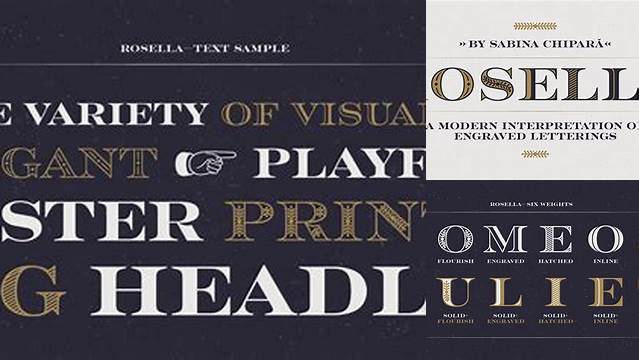
Rosella Pro Inline Font: Free Download & Design Tips
Hey everyone! Today, we're diving headfirst into the fantastic world of the Rosella Pro Inline font. This is a super cool typeface that's perfect for adding a touch of elegance and style to your designs. If you're looking for a free download of Rosella Pro Inline, you've come to the right place. We'll explore where you can grab it, how to use it effectively, and even sprinkle in some design tips to help you create stunning visuals. So, buckle up and get ready to unleash your creativity with this awesome font! Let's get started with everything you need to know about Rosella Pro Inline and its free download options. It's all about making your designs pop and attracting your audience! This will make sure that you can create the best visual experience when people see your work.
Understanding the Rosella Pro Inline Font Family
Let's delve deeper into the Rosella Pro Inline font family. This font is known for its unique inline design, meaning it has a clean line running through the center of each letter. This design adds a touch of modern flair and makes it a standout choice for various design projects. You'll find that the font looks fantastic in headlines, titles, and any situation where you want to make a bold statement. Because of its distinctive style, the Rosella Pro Inline font can be incredibly versatile. It can also be used for creating logos, social media graphics, and even website headers. It's all about knowing how to wield its power. The font comes in different weights, offering flexibility for designers. Whether you want a delicate and graceful look or something more robust and eye-catching, the Rosella Pro Inline font can meet your needs. Understanding its range of weights and styles will help you find the perfect match for your project.
What Makes Rosella Pro Inline Special
So, what makes the Rosella Pro Inline font so special? Well, it's all about its unique character. The inline design, that line running through the middle of each letter, gives the font a modern and sophisticated feel. This design choice makes it stand out from the crowd of more traditional fonts. It's also incredibly versatile; it can work for a wide variety of projects. It's perfect for creating eye-catching headlines, logos, and social media graphics. Its clean lines and distinctive style make it easy to read while adding a touch of visual interest. The font's adaptability to different design styles is one of its greatest strengths. Whether you're going for a minimalist look or something more playful, the Rosella Pro Inline can adapt to your needs. It's a great option for designers who want to add a modern and visually appealing touch to their projects. The font's design can have the power to attract and impress at the same time.
Comparing Rosella Pro Inline to Similar Fonts
If you can't find the exact Rosella Pro Inline font free download, or maybe you're looking to explore some alternatives, you're in luck. There are many similar fonts out there that share its modern and eye-catching style. When searching for alternatives, look for fonts with an inline design, a clean, sans-serif style, and a touch of elegance. A good starting point is to search for